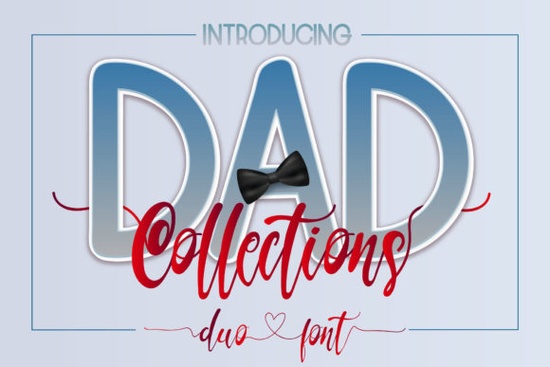
If you’re looking for a font that feels both personal and polished, Dad Collections Font is worth adding to your toolkit. It’s a duo typeface one clean sans serif and one flowing script designed to work together or stand alone. Whether you’re making Father’s Day cards, custom mugs, or branding materials for a small business, this pair adapts without fuss. The script version includes swashes and alternates, all accessible thanks to PUA encoding, so you don’t need advanced software to use the full character set.
What kinds of projects does Dad Collections Font work best for?
This font shines in projects where warmth and readability matter. Think:
- Father’s Day gifts T-shirts, tote bags, engraved wood signs
- Small business branding Coffee shops, barbershops, local workshops
- Print-on-demand products Mugs, posters, phone cases with personalized quotes
- Invitations and announcements Baby showers, birthdays, family reunions
The sans serif keeps things grounded and modern, while the script adds a handcrafted, emotional touch. You can mix them for contrast like using the script for “Dad” and the sans for “Est. 1985” or let one style carry the whole design.
How easy is it to access all the glyphs and swashes?
How does it compare to other script fonts for family-themed designs?
It holds its own. If you’ve used Aston, you’ll notice Dad Collections has a softer, more approachable flow. Compared to Kangen Michella, it’s less ornate better for everyday use rather than formal events. For heartfelt messages, it’s similar in tone to Thank You Nurses, but with a more masculine, grounded vibe. And if you liked the rustic charm of Father Farmhouse, you’ll appreciate how Dad Collections offers cleaner lines while keeping that personal feel.
Any tips for pairing it with other fonts or colors?
A few simple tricks help it shine:
- Pair with neutrals. Charcoal, cream, olive green, or soft denim blue let the script breathe without competing.
- Use sparingly. One word in script like “Dad,” “Papa,” or “Hero” next to clean sans serif text creates balance.
- Try texture backgrounds. Kraft paper, linen, or subtle grain overlays make the elegant script feel cozy, not stiff.
And if you’re layering text, keep line spacing generous especially with the script. Those swashes need room to stretch out.
Where should I start if I’m new to using script fonts?
Start small. Pick one short phrase “Best Dad Ever” or “Proud Papa Since 2020” and experiment with size, color, and layout. Try the script alone first, then add the sans serif as a subtitle or accent. Watch how the two styles interact. Don’t feel pressured to use every swash; sometimes the simplest version reads best, especially on small items like keychains or stickers.
Fonts like this aren’t about flashy effects they’re about feeling. Dad Collections works because it doesn’t try too hard. It’s legible, flexible, and quietly meaningful. Perfect for when you want your design to say something personal, without shouting.